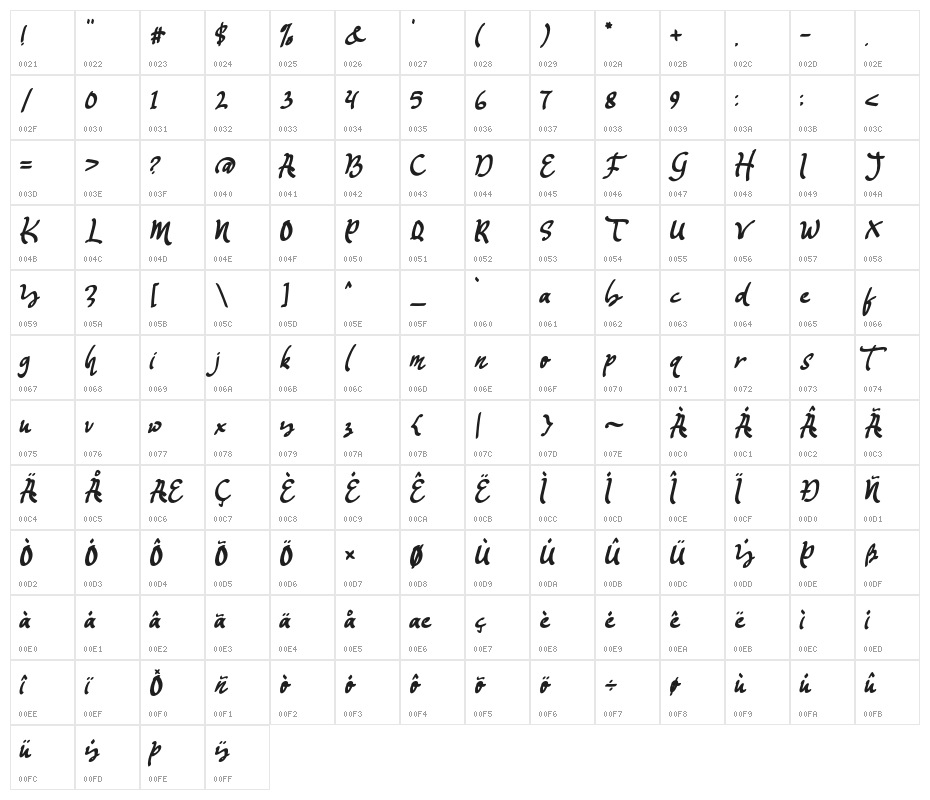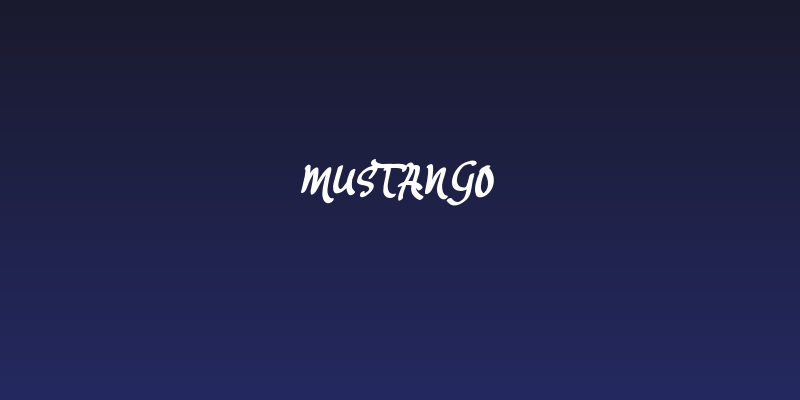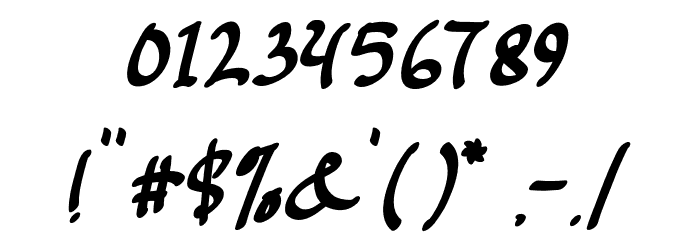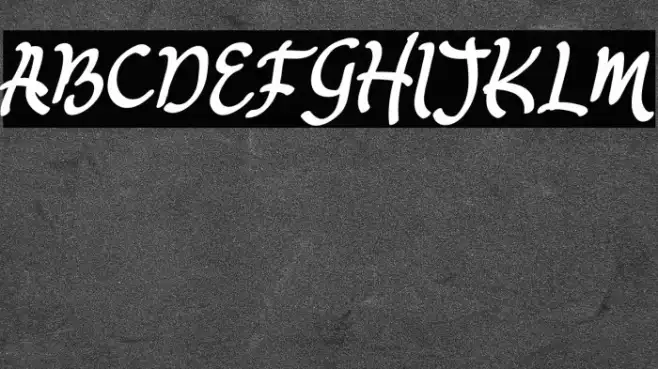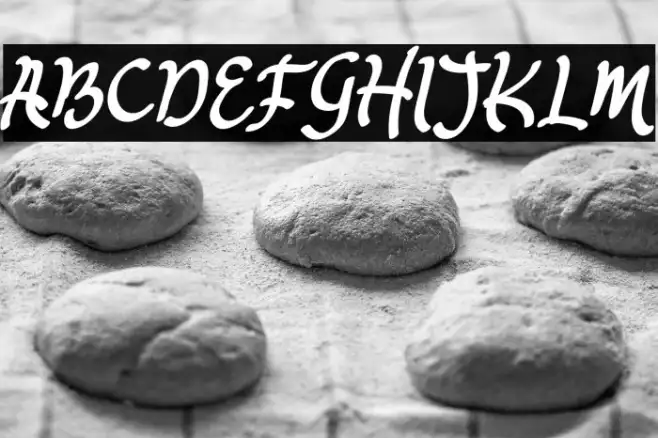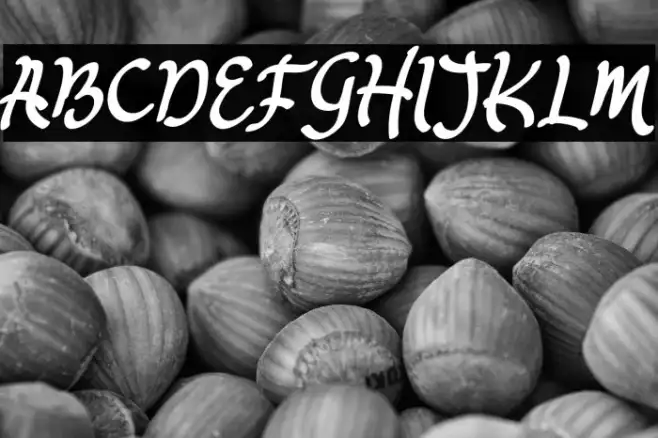
Mustango Font
Mustango Description
This font exudes a dynamic and energetic style, characterized by its bold and flowing script. The letters are crafted with a sense of movement, featuring varying stroke widths that add a lively rhythm to the text. The uppercase letters stand tall with a slight slant, while the lowercase letters maintain a consistent flow, enhancing readability. The numerals are equally expressive, maintaining the font's overall fluidity. Special characters are designed with the same attention to detail, ensuring a cohesive look across all elements. This font is ideal for projects that require a touch of personality and flair.